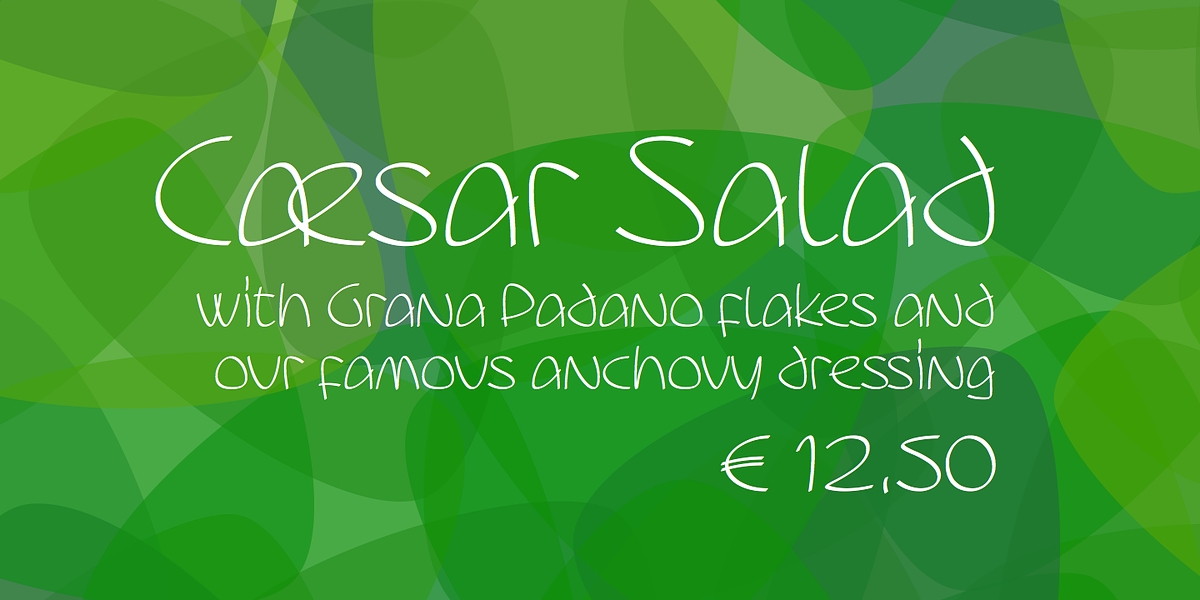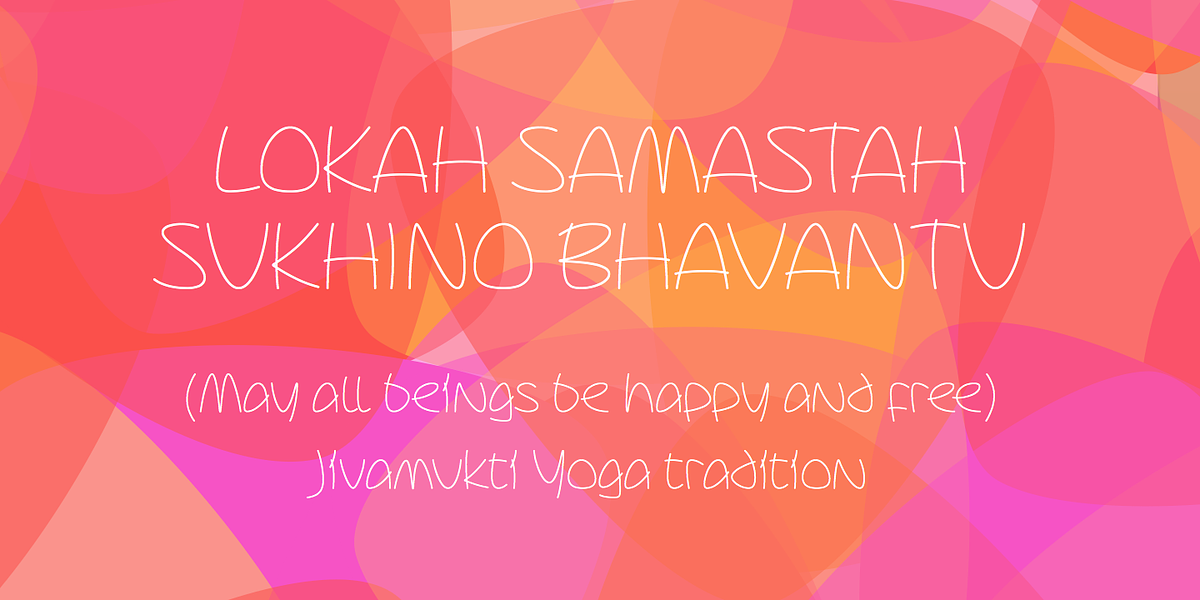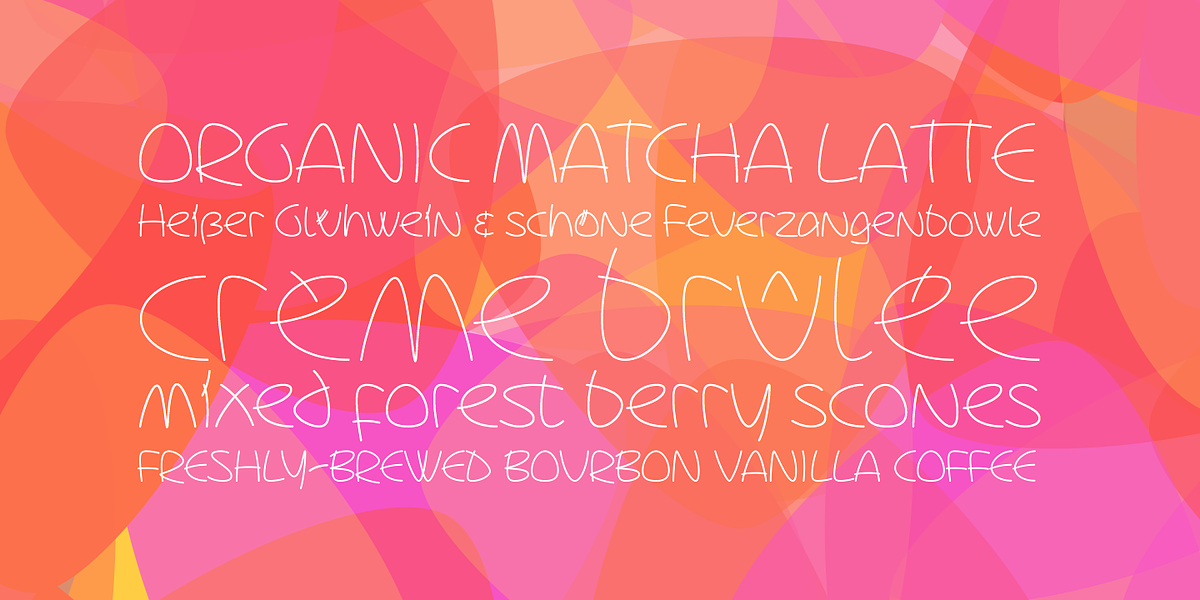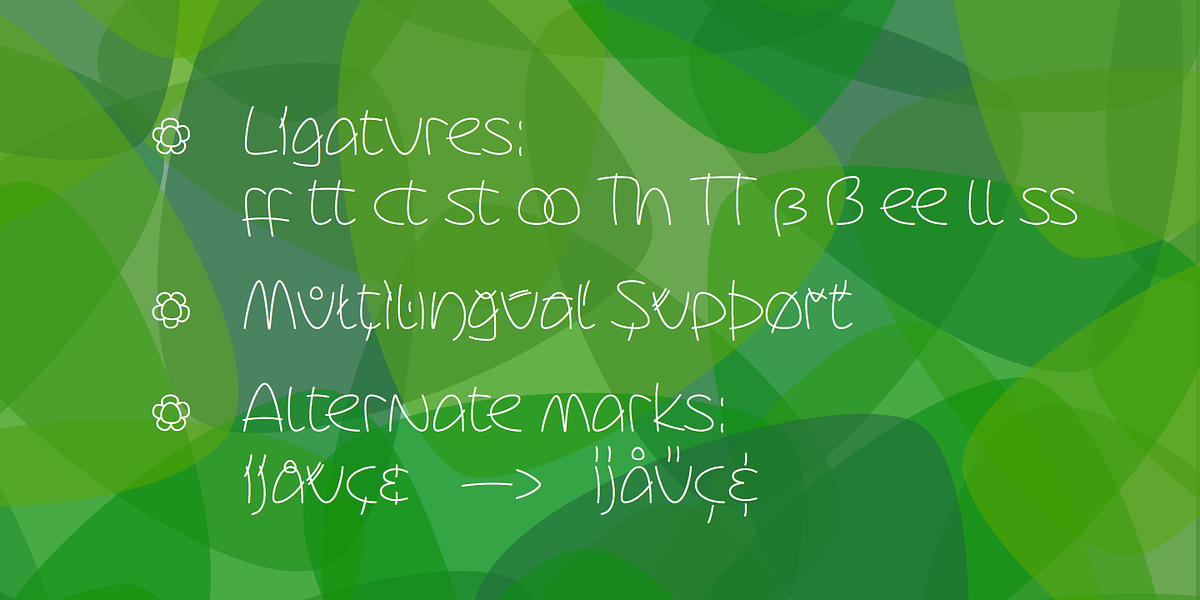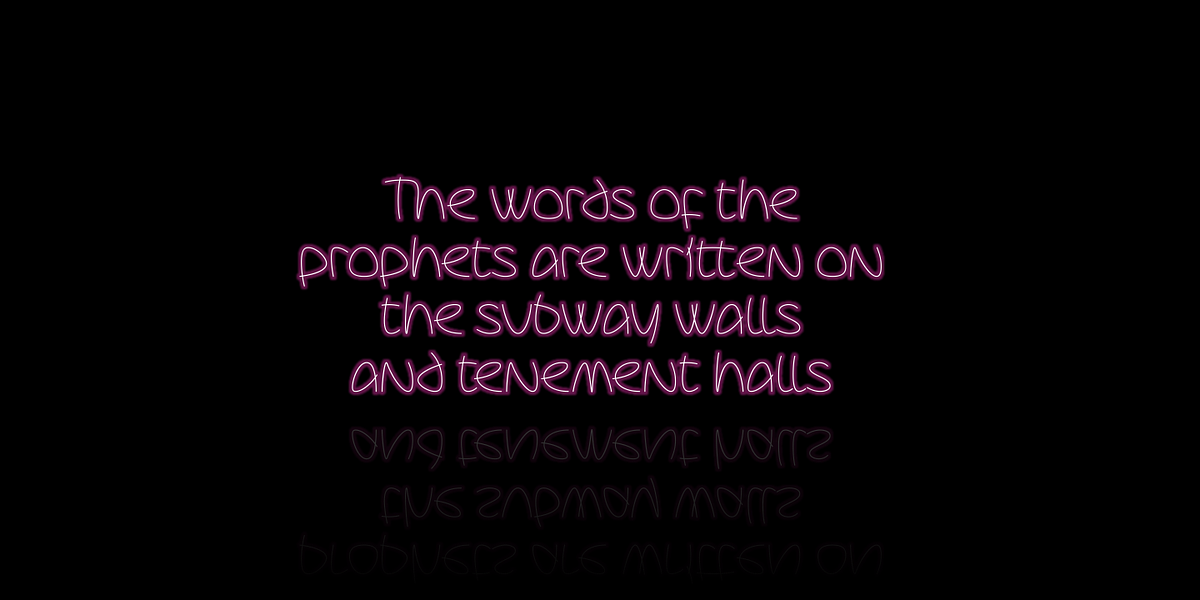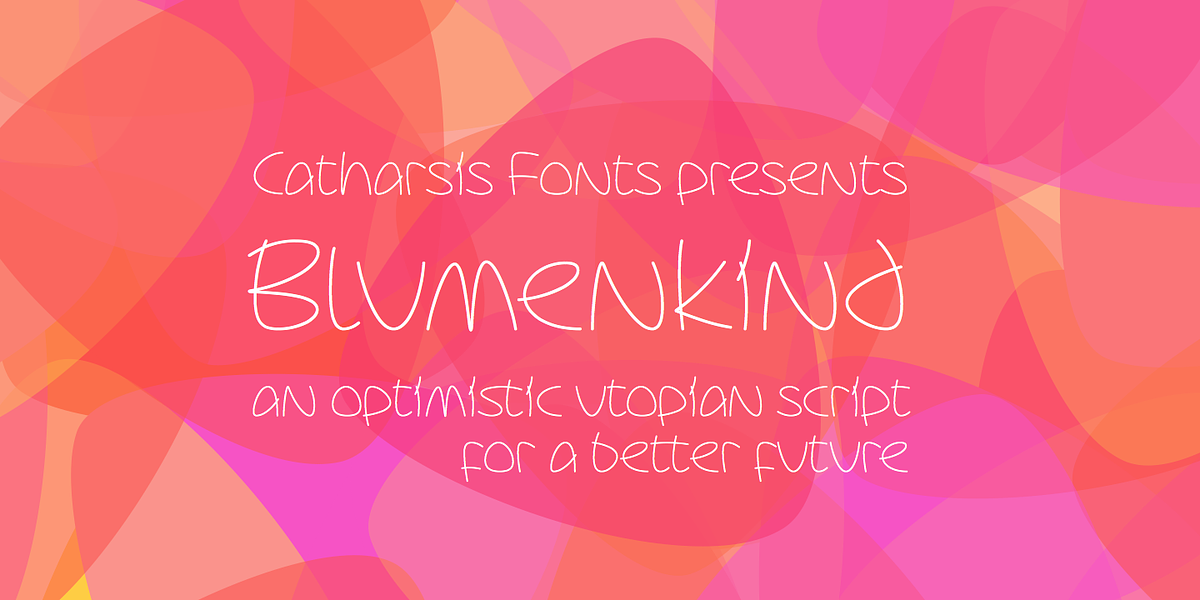
Blumenkind
Blumenkind is a humanist script font characterized by its friendly and optimistic personality. Its strokes are based on rounded triangles, giving it a dynamic bounce and a natural human touch. The font excels in display applications, particularly for art, creativity, food & beverage, social events, and spirituality. Inspired by 1960s metal-strip lettering found on a Berlin building, Blumenkind comes with extensive language support, tight kerning, attractive ligatures, and subtly varied alternate shapes for common doubled letters. It is available in three linear weights and one calligraphic weight, along with a complementary version (Blumenkind Alternate) featuring more traditional accent marks.